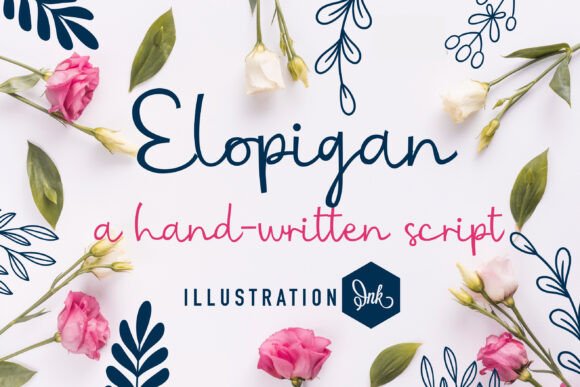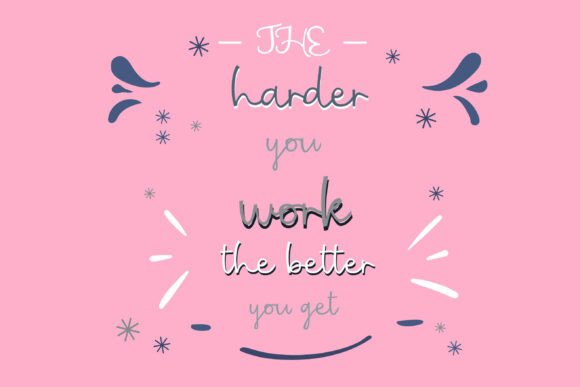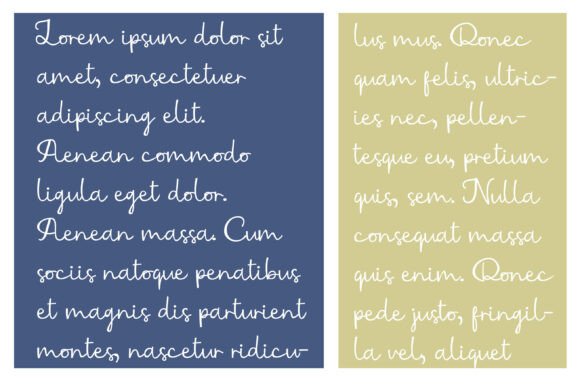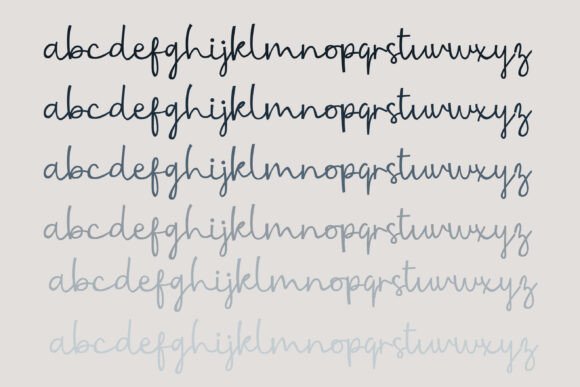
Elopigan Font: Elegant Script for DIY & Social Media Design!
About the Elopigan Font
Crafted with precision, the Elopigan Font is ready to bring your ideas to life. Elopigan is a magical script font carefully created with a touch of elegance. Whether you’re looking for fonts for Instagram or calligraphy scripts for DIY projects, this font will turn any creative idea into a true piece of art!
Elopigan’s elegant, flowing forms are ideal for projects requiring a touch of refined flair. It excels in headlines, short text blocks on invitations or branding materials, and as an accent font in logos. However, its decorative nature makes it unsuitable for body text or UI elements where readability is paramount; long passages set in Elopigan would be difficult to read.
Consider pairing Elopigan with a clean sans-serif like Montserrat for a contemporary feel, or a classic serif such as Garamond for a more traditional aesthetic. For a bolder contrast, a geometric sans-serif like Futura could create a striking juxtaposition. These pairings provide readability for supporting text while letting Elopigan’s elegant script shine.
Elopigan projects an overall sophisticated and graceful personality, best suited for brands or projects aiming for a luxurious, feminine, or artistic image. Avoid using it in contexts demanding a strong, modern, or minimalist look.